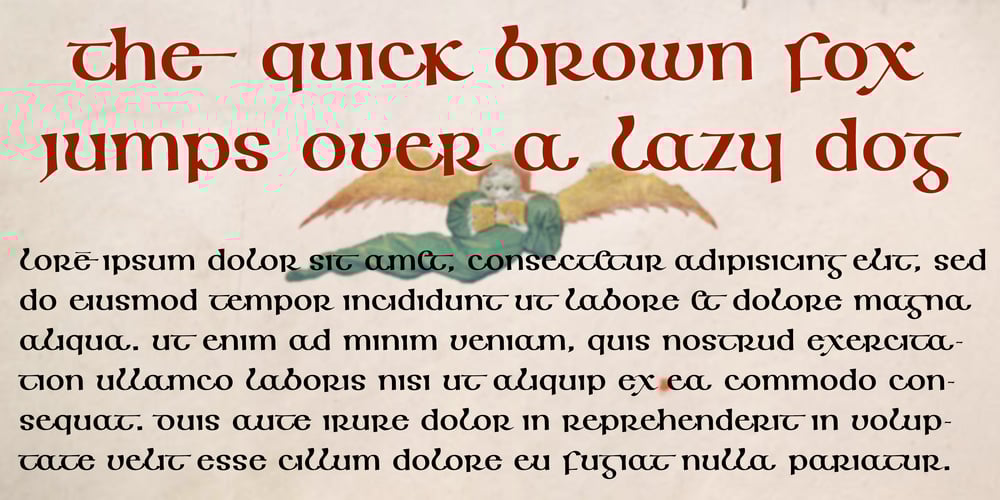
Agedage Insular HU
Agedage Insular HU font
Agedage Insular HU Font Family was designed by published by Dharma Type. Agedage Insular HU contains 1 styles and family package options. Insular Half Uncial was the script in use in England and Ireland from Post-Roman to the 8th century. Agedage Insular HU is a Opentype font supporting some opentype layout features. To use these functions, you need to use an application which supports OpenType advanced features such as Adobe InDesign CS, Illustrator CS and Photoshop CS. We strongly recommend: Standard Ligatures : ON Discretionary Ligaures : ON Contextual Alternates : ON Swash : ON In addition, the font includes: Ordinals, Numerators, Denominators, Fractions and a few alternates.